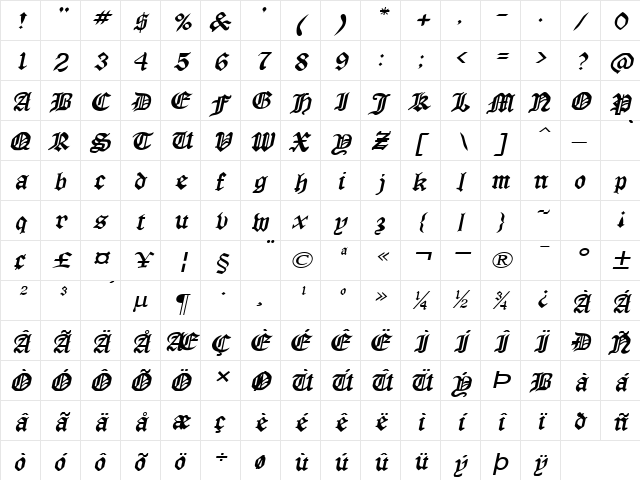
ManuscriptExtended Italic Free Font
ManuscriptExtended Italic
Complete ManuscriptExtended Italic glyph index. Displaying only characters natively supported by ManuscriptExtended Italic font.
Design Context for ManuscriptExtended
ManuscriptExtended flows with the natural rhythm of handwritten lettering, making it ideal for designs that call for warmth and personal expression.
Font Pairing: Combine ManuscriptExtended with a simple geometric sans for maximum contrast - the tension between flowing curves and clean structure is a classic typographic pairing.
Pro Tip: Use ManuscriptExtended for short runs of text - names, titles, or taglines. Extended body copy in script faces tires the eye quickly.